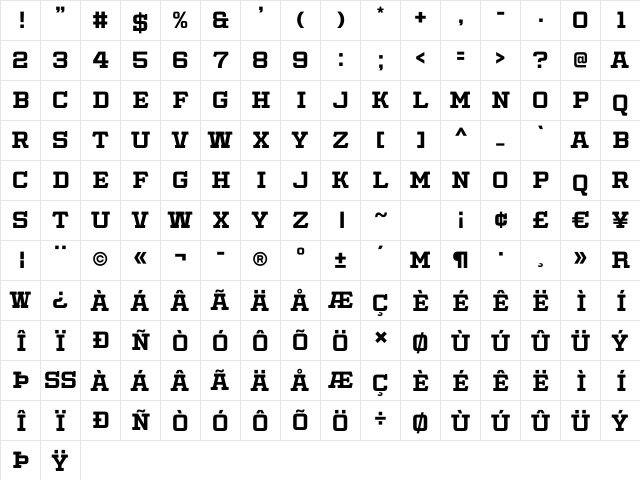
Slabby Prices Regular
Design Context for Slabby Prices Typeface
Slabby Prices features prominent, blocky serifs that give it a confident, grounded presence — equally at home in editorial settings and bold branding work.
Suited to magazines, political campaign materials, bold packaging, and any setting where authority matters.
Pro Tip: Use Slabby Prices for headlines and subheadings where its slab serifs can make an impression. It also holds up well in mid-size body copy thanks to its sturdy construction.